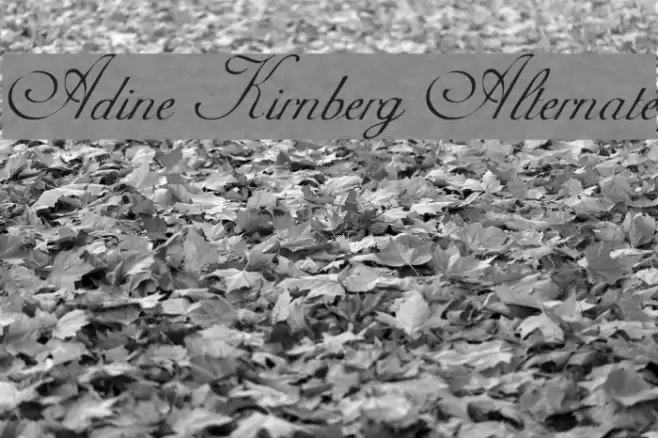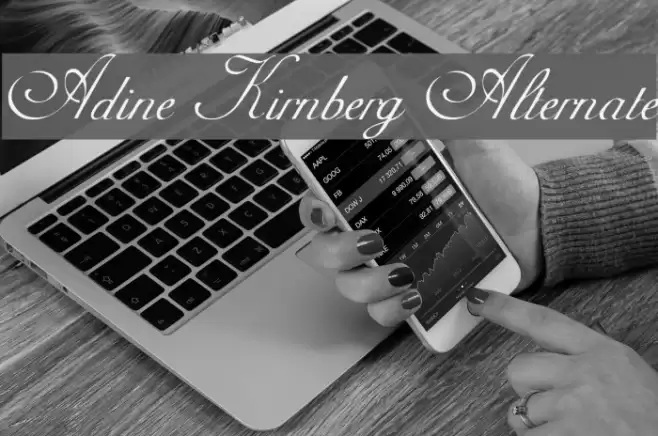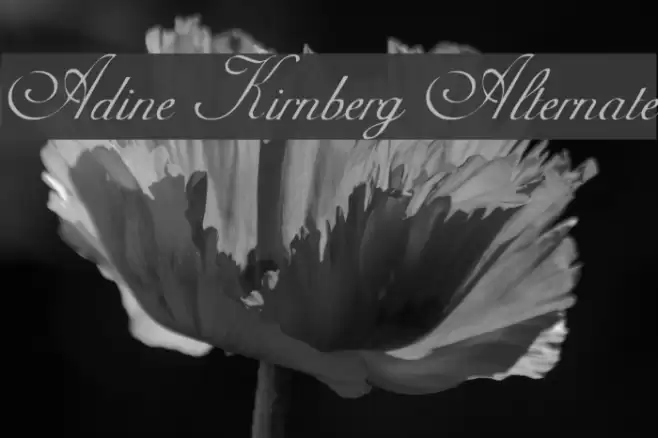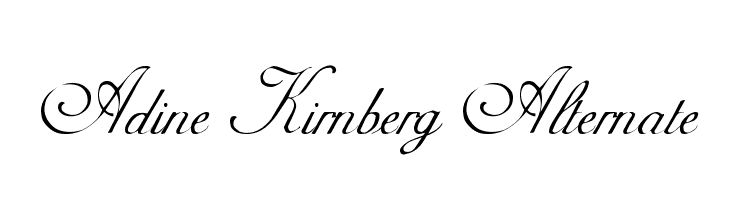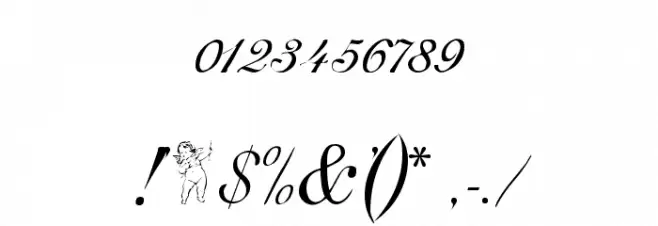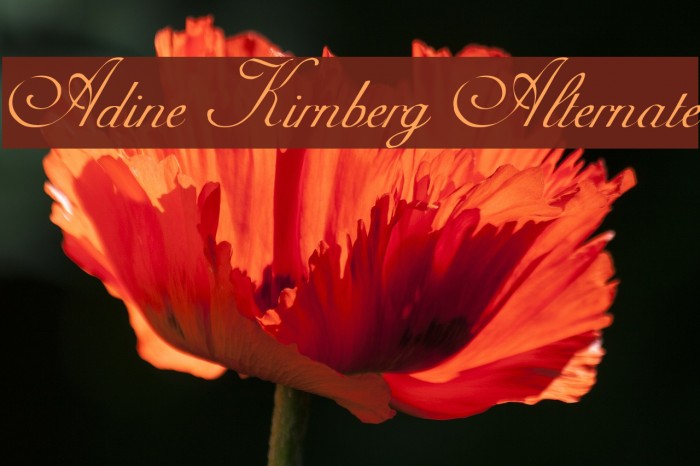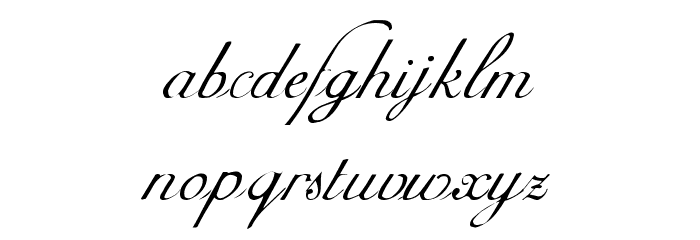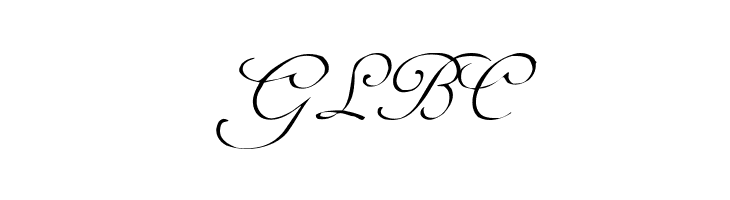
Adine Kirnberg Alternate Font
Adine Kirnberg Alternate Description
This font exudes elegance and sophistication with its flowing, cursive style. The uppercase letters are adorned with intricate swirls and flourishes, giving them a decorative and ornate appearance. The lowercase letters maintain a smooth and graceful form, complementing the uppercase with their fluidity. Numbers and special characters are designed with similar attention to detail, ensuring consistency across the typeface. The overall aesthetic is reminiscent of classic calligraphy, making it suitable for formal and decorative applications.
An elegant, cursive font with ornate swirls and flourishes from Art Nouveau fonts.
- Proposed Projects: Ideal for wedding invitations, formal event programs, luxury branding, and decorative certificates.
- Overall Style: Classic